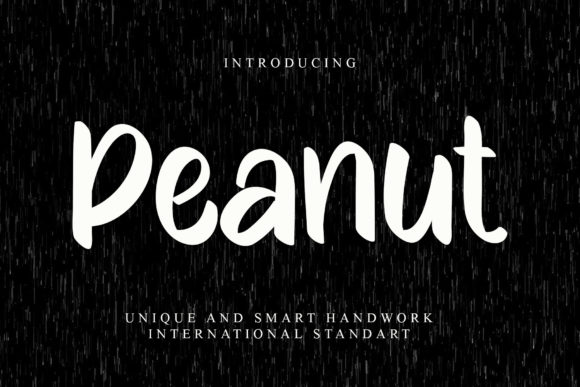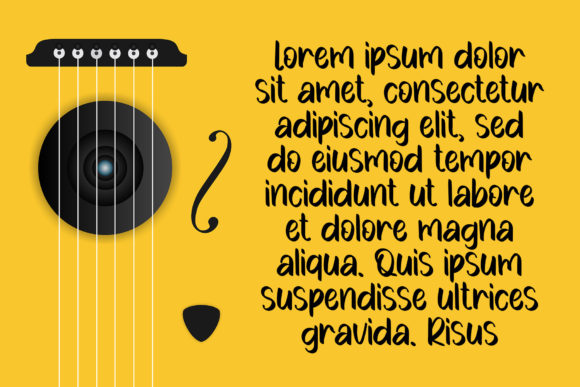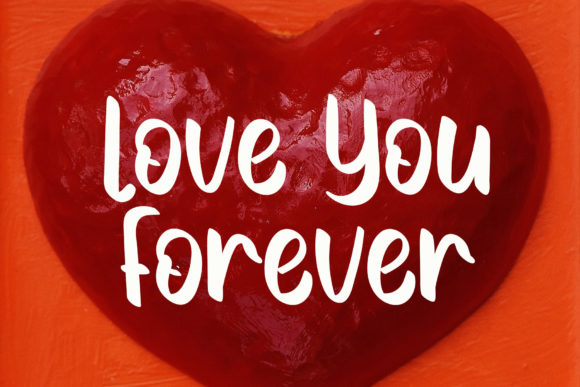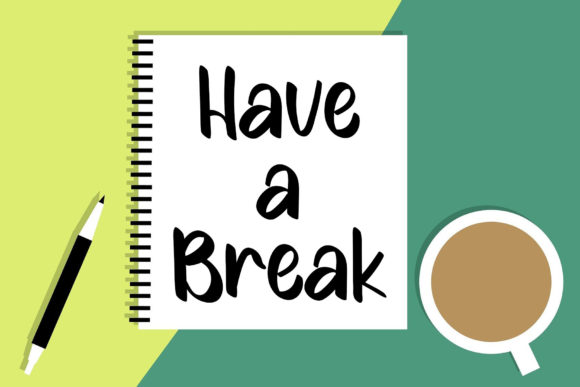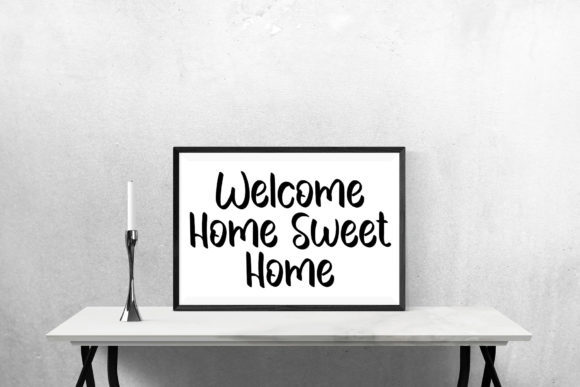
Peanut Font
About Peanut Font
Peanut is a clean, neat and smart looking handwritten font. This font was particularly crafted for those who need a beautiful and refreshing look to their designs.